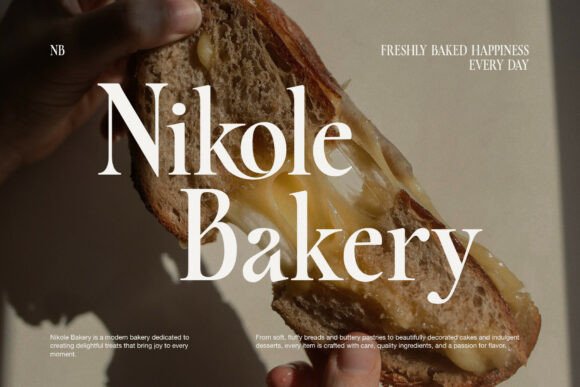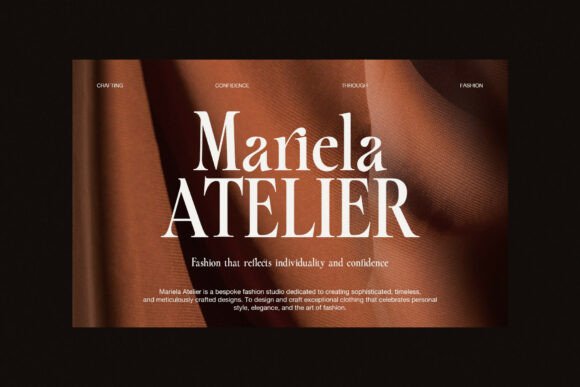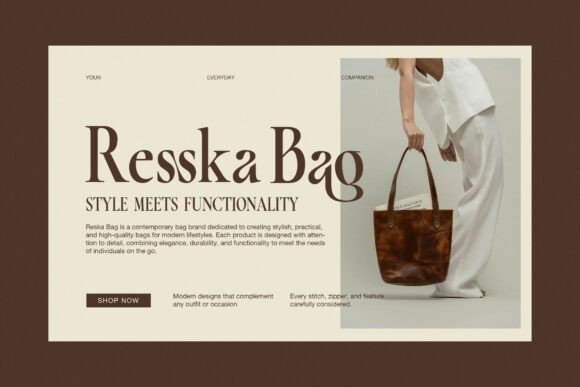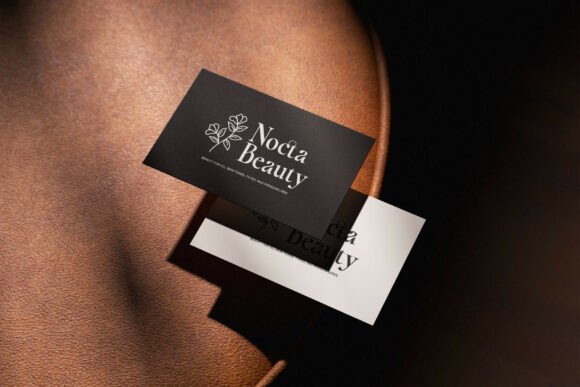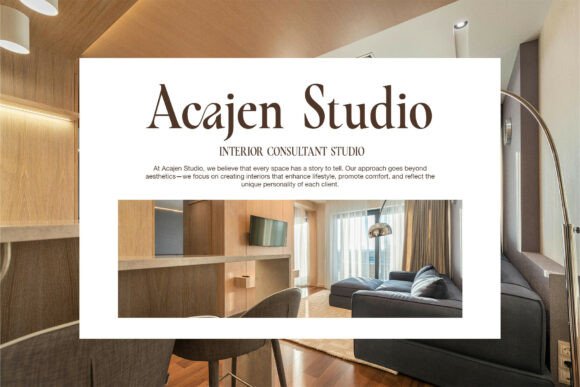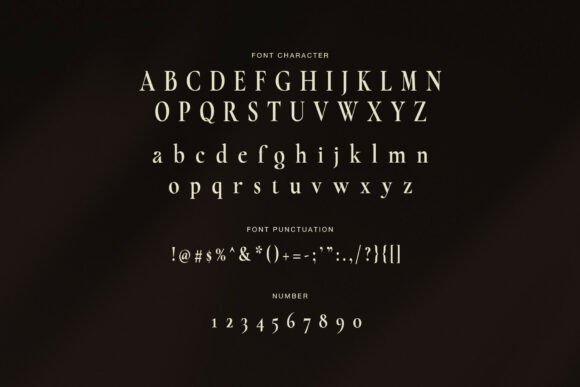
Bragget Font: Elevate Your Designs with Refined Elegance
In the world of typography, a font can make or break the aesthetic of a design. For those seeking a refined and luxurious feel, Bragget Font is an exceptional choice. This display serif font embodies a soft luxury mood and a modern classic feel, making it perfect for designers and crafters looking to add a touch of sophistication to their work.
The Characteristics of Bragget Font
Bragget Font is distinguished by its graceful letterforms, clean contrast, and stylish ligatures. These features combine to create a polished, elegant, and memorable visual identity. At first glance, the font exudes a sense of calmness and premiumness, making it ideal for high-end branding, advertising, and editorial design.
However, upon closer inspection, the details of Bragget Font reveal a stronger personality that helps every word stand out. The font’s refined serifs and carefully crafted letterforms add a level of nuance and sophistication, making it perfect for designers seeking to create a lasting impression.
Key Features of Bragget Font
- Graceful Letterforms: Bragget Font boasts elegant and refined letterforms that convey a sense of luxury and sophistication.
- Clean Contrast: The font’s clean contrast ensures that the text is easy to read, even at smaller sizes.
- Stylish Ligatures: Bragget Font features stylish ligatures that add a touch of elegance and refinement to the text.
- Modern Classic Feel: The font’s modern classic feel makes it perfect for designers seeking to create a timeless and sophisticated visual identity.
Uses of Bragget Font
Bragget Font is versatile and can be used in a variety of design applications, including:
- Branding: Bragget Font is perfect for creating high-end brand identities that exude luxury and sophistication.
- Advertising: The font’s refined and elegant feel makes it ideal for use in advertising campaigns seeking to convey a sense of premiumness.
- Editorial Design: Bragget Font is well-suited for use in editorial design, including magazines, newspapers, and books.
- Packaging: The font’s stylish and refined feel makes it perfect for use in packaging design, particularly for luxury goods.
Tips for Using Bragget Font
To get the most out of Bragget Font, consider the following tips:
- Use it as a Display Font: Bragget Font is designed to be used as a display font, so use it to create headlines and titles that demand attention.
- Pair it with a Sans-Serif Font: Pair Bragget Font with a sans-serif font to create a striking contrast and add visual interest to your design.
- Experiment with Ligatures: Take advantage of Bragget Font’s stylish ligatures to add a touch of elegance and refinement to your design.
Bragget Font is a refined and luxurious display serif font that embodies a soft luxury mood and a modern classic feel. With its graceful letterforms, clean contrast, and stylish ligatures, it’s perfect for designers and crafters seeking to add a touch of sophistication to their work. Whether you’re creating a high-end brand identity, advertising campaign, or editorial design, Bragget Font is an exceptional choice.